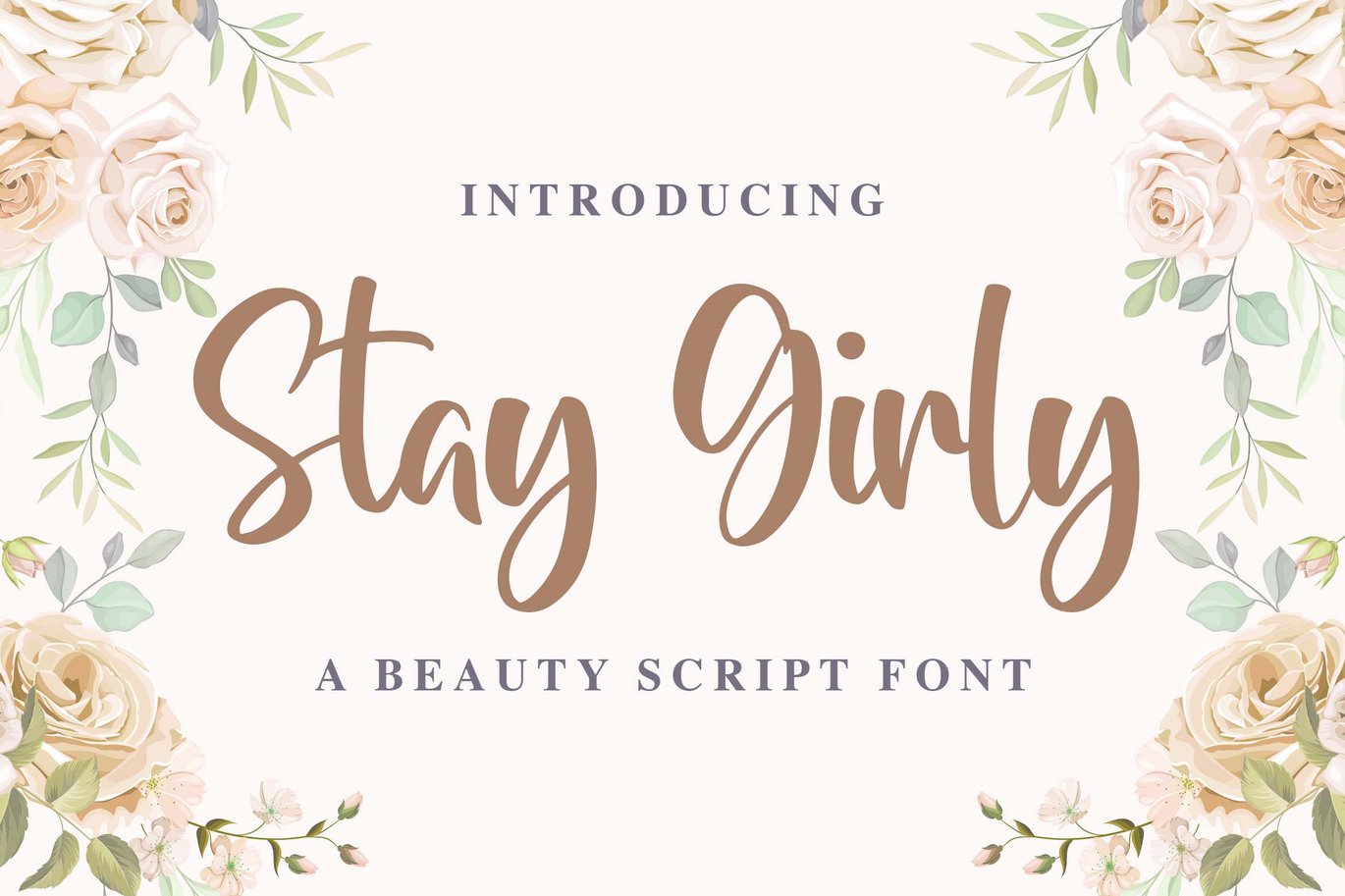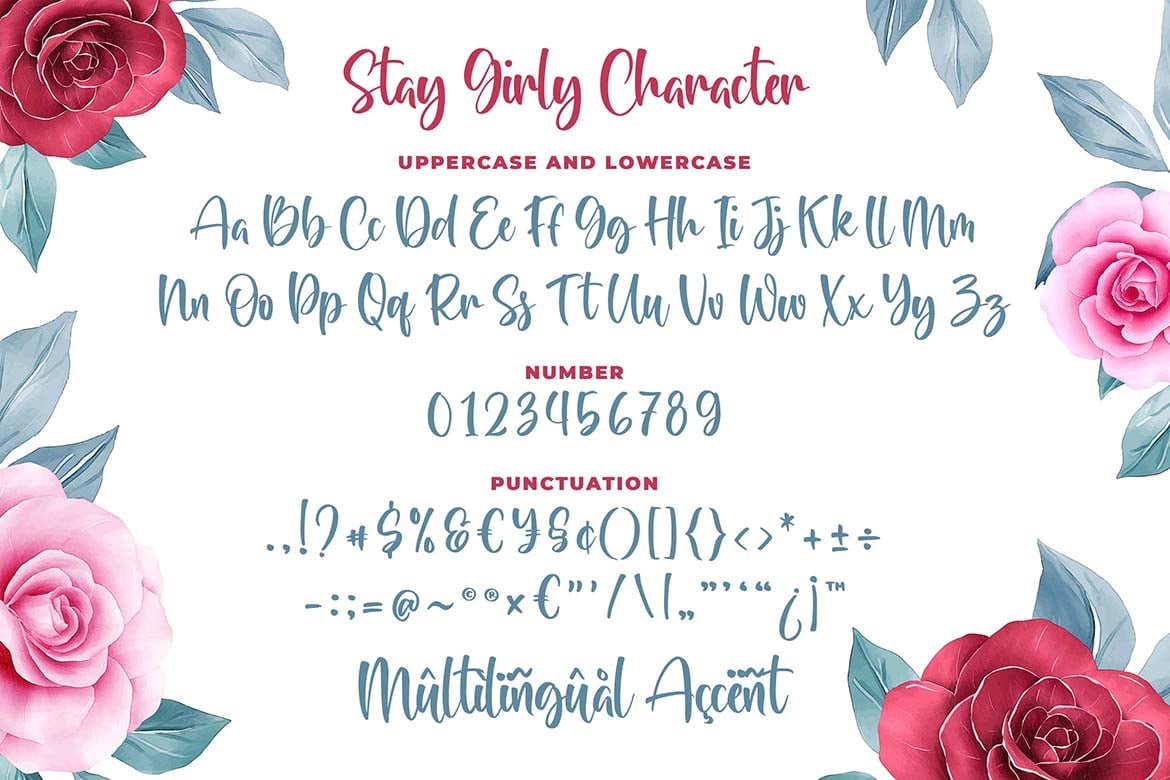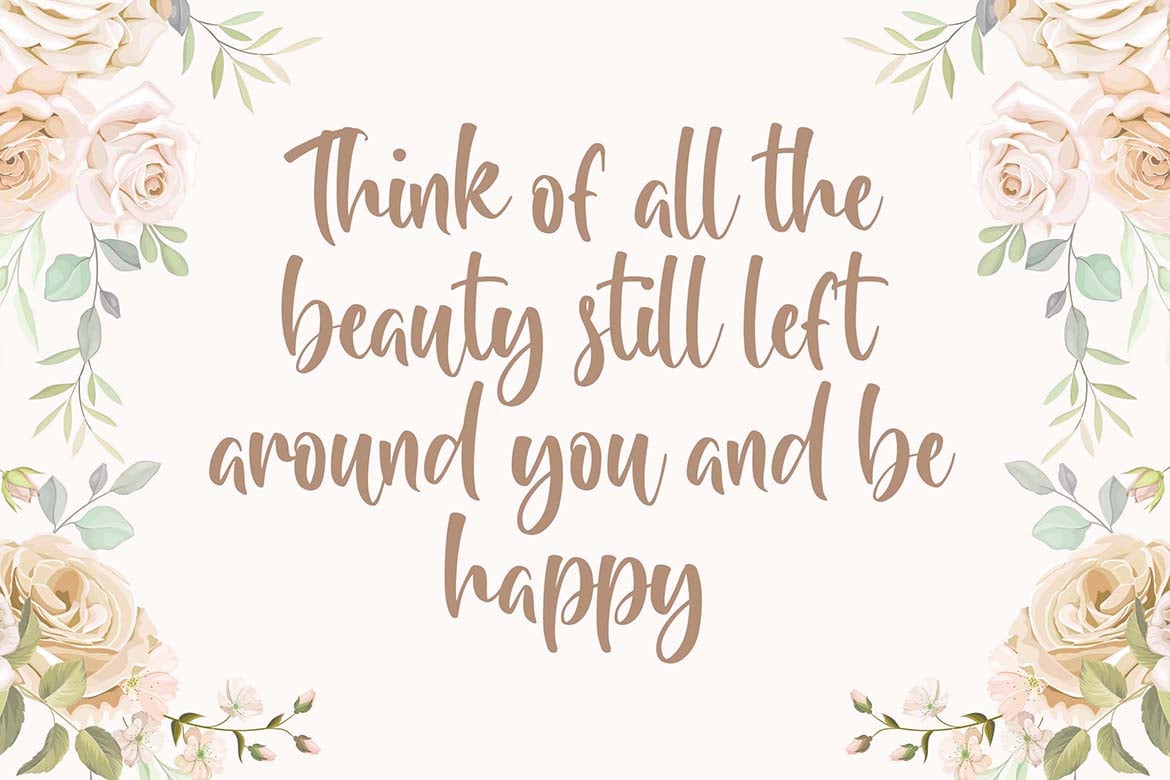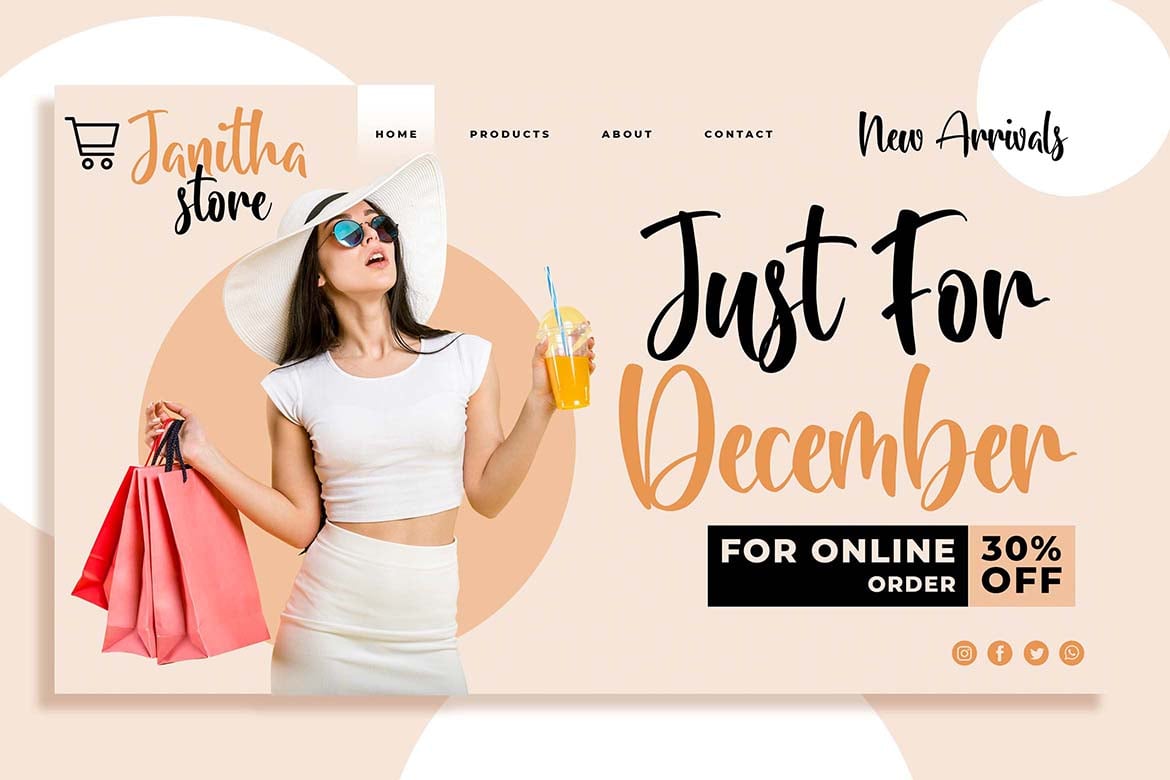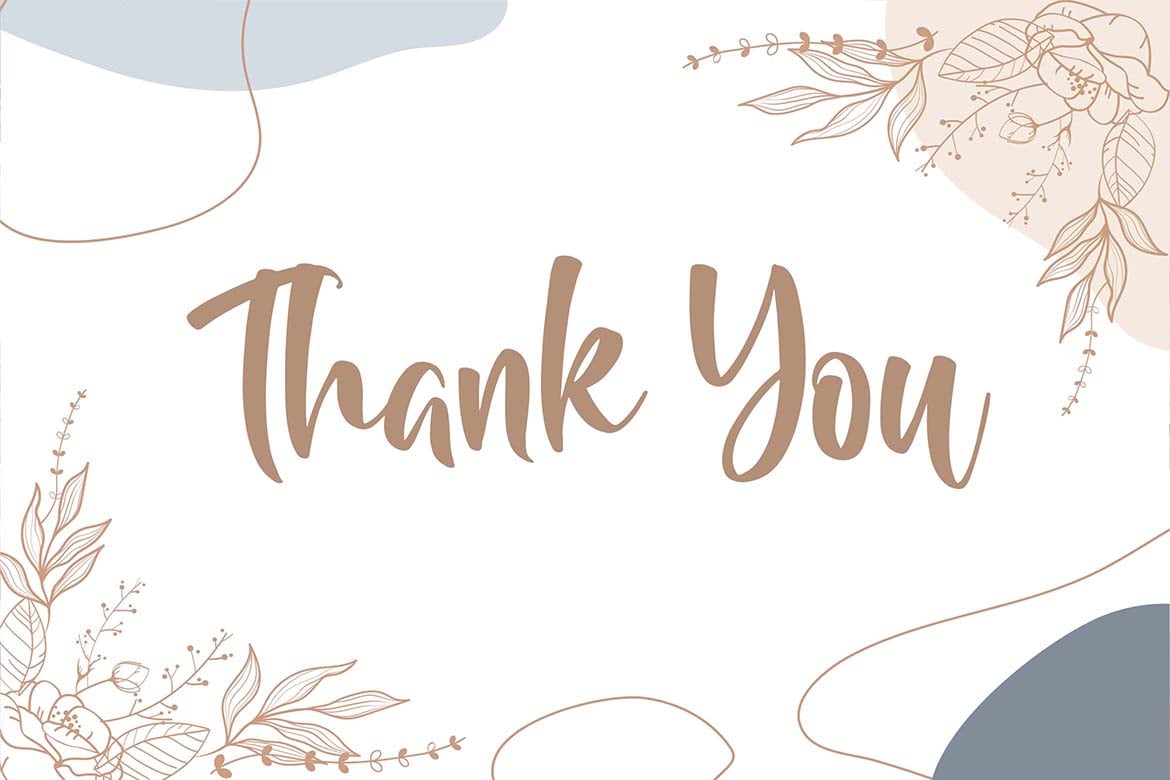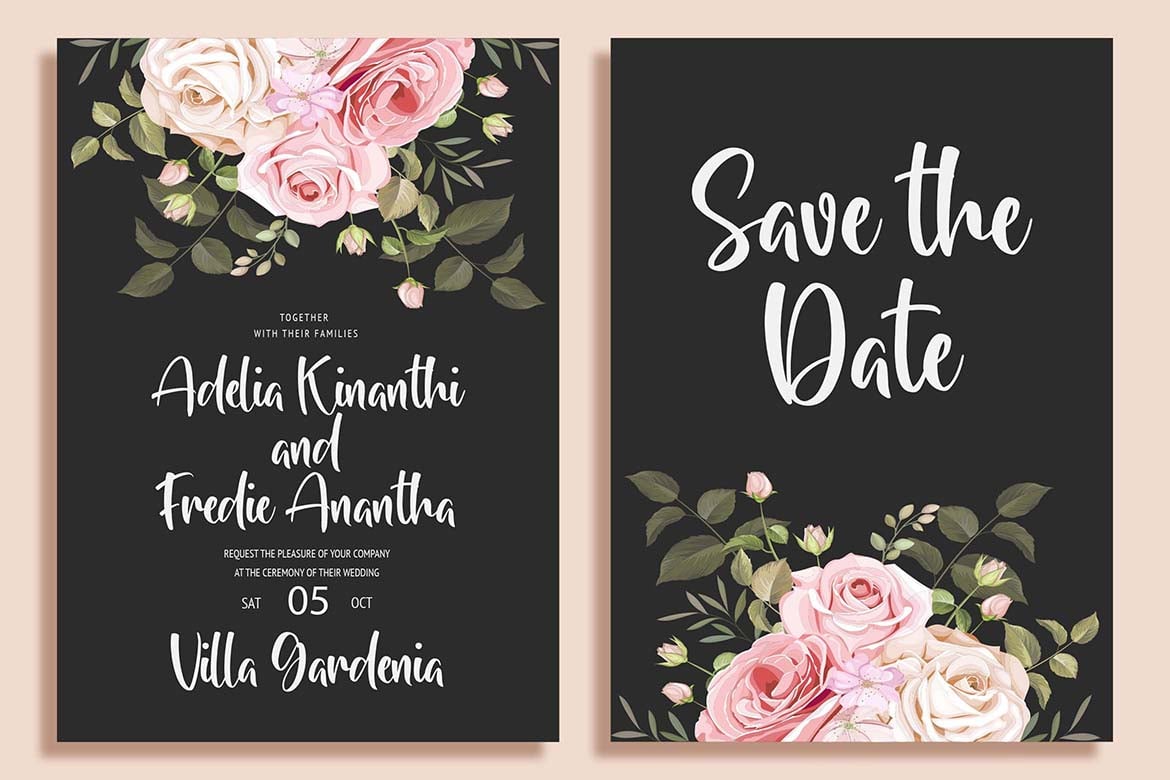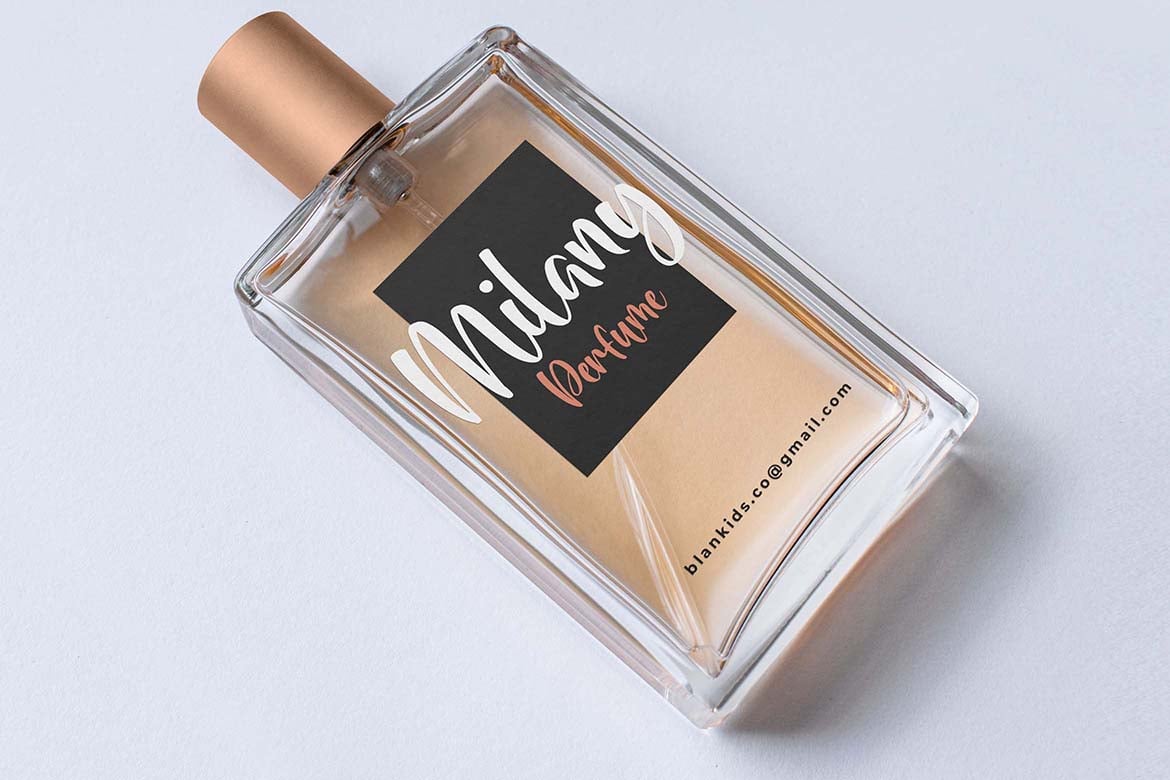
Stay Girly a Beauty Script Font
Introducing of our new product the name is Stay Girly a Beauty Script Font. Stay Girly inspired by brush calligraphy style this font is a fun theme very good for display, tshirt design, craft, quote sign, logotype and etc
MULTILINGUAL ACCENT :
ØÆøæ¢ÐŒœÁĂÂÀÄĄÅÃǼĆČÇĈĊĎÉĔĚÊËĖÈĘĞĜĢĠĤÍĬÎÏİÌĮĨĴĶĹĽĻĿŃŇŅÑÓŎÔÖÒŐǾÕŔŘŖŚŠŞŜȘŤŢÚŬÛÜÙŰŲŮŨẂŴẄẀÝŶŸỲŹŽŻáăâäàąåãǽćčçĉċďéĕěêëėèęğĝģġĥíîïìįĩĵķĺľļŀńʼnňņñóŏôöòőǿõŕřŗśšşŝșťţŭûüűùųůũẃŵẅẁýŷÿỳźžż